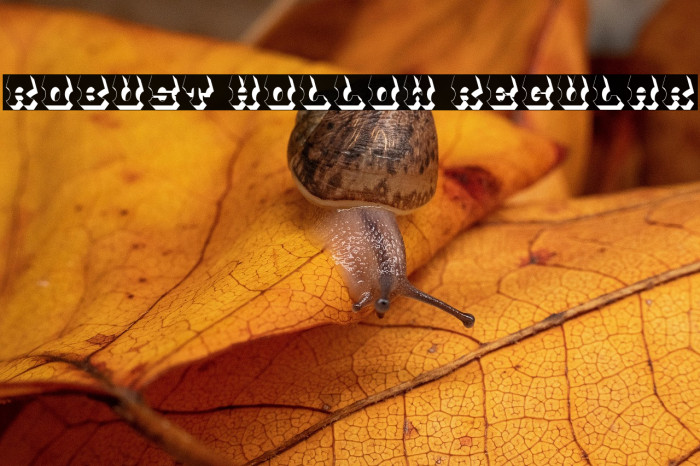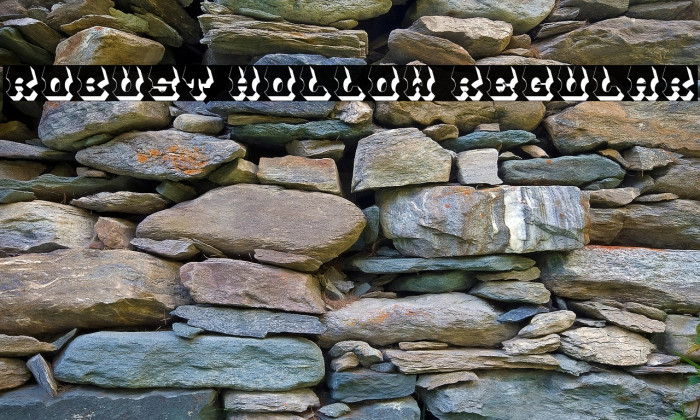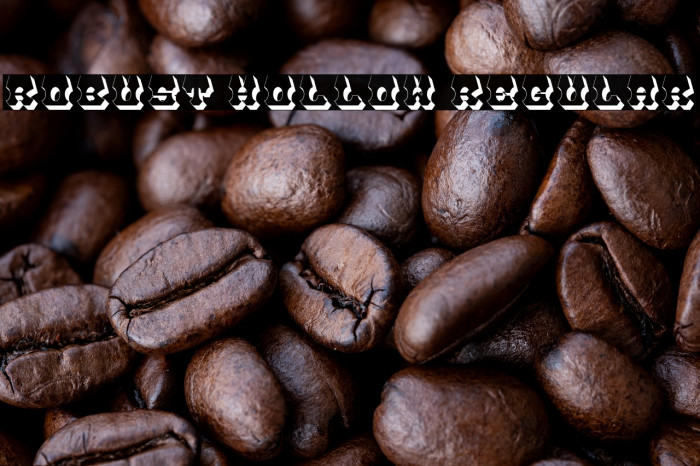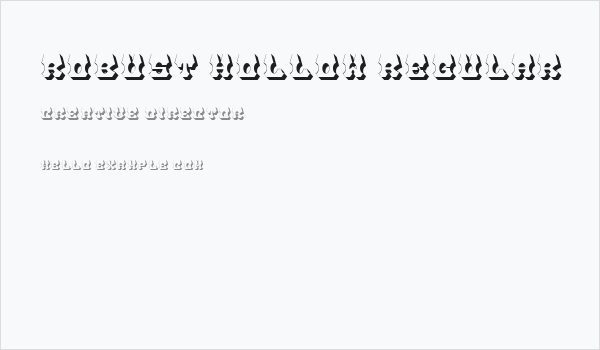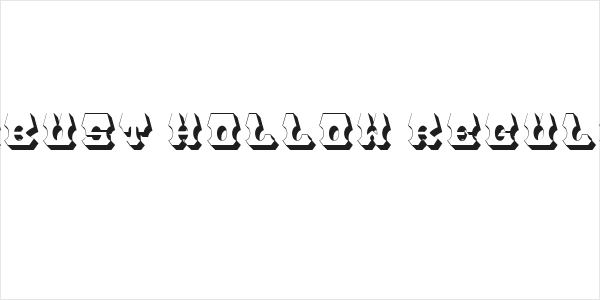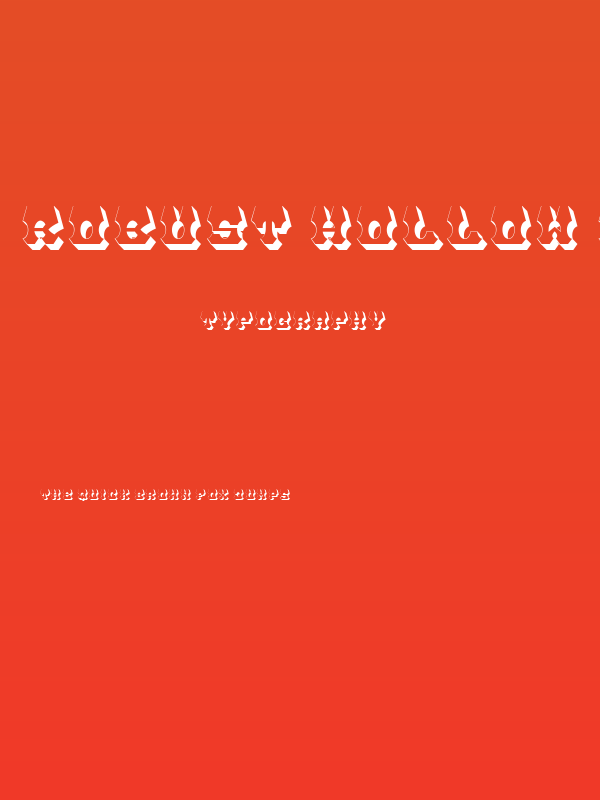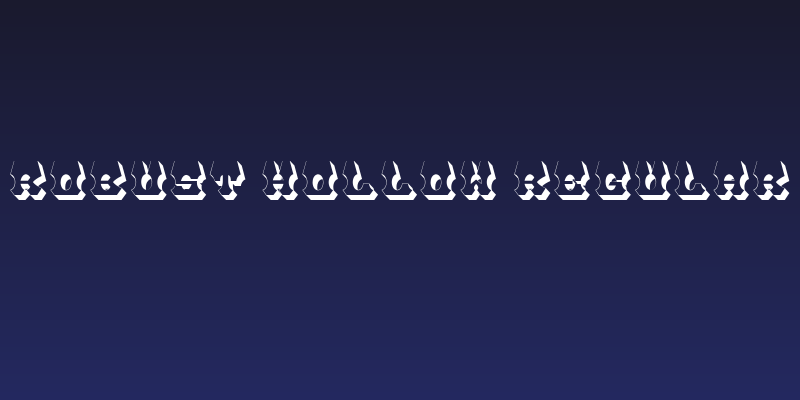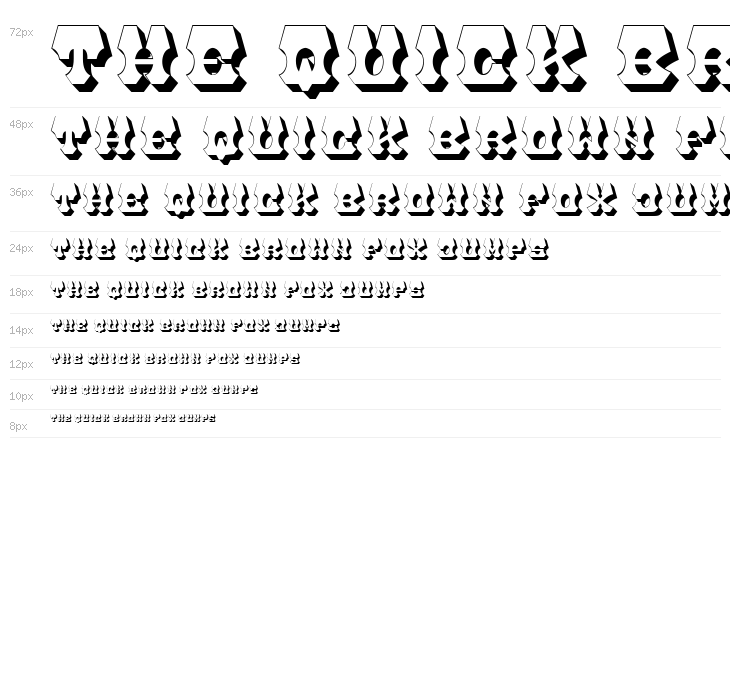
Robust Hollow Regular Font
Robust Hollow Regular Description
This font features a bold and striking design with a hollow, three-dimensional appearance. The characters are outlined with a thick black border, creating a shadow effect that gives depth and dimension. The interior of each character is left open, enhancing the hollow effect and adding a sense of lightness despite the bold outlines. The geometric shapes and angular edges contribute to a modern and edgy aesthetic. This font is highly decorative and makes a strong visual impact, ideal for attention-grabbing designs.
| Proposed Projects | Ideal for posters, headlines, logos, and any design requiring a bold statement. |